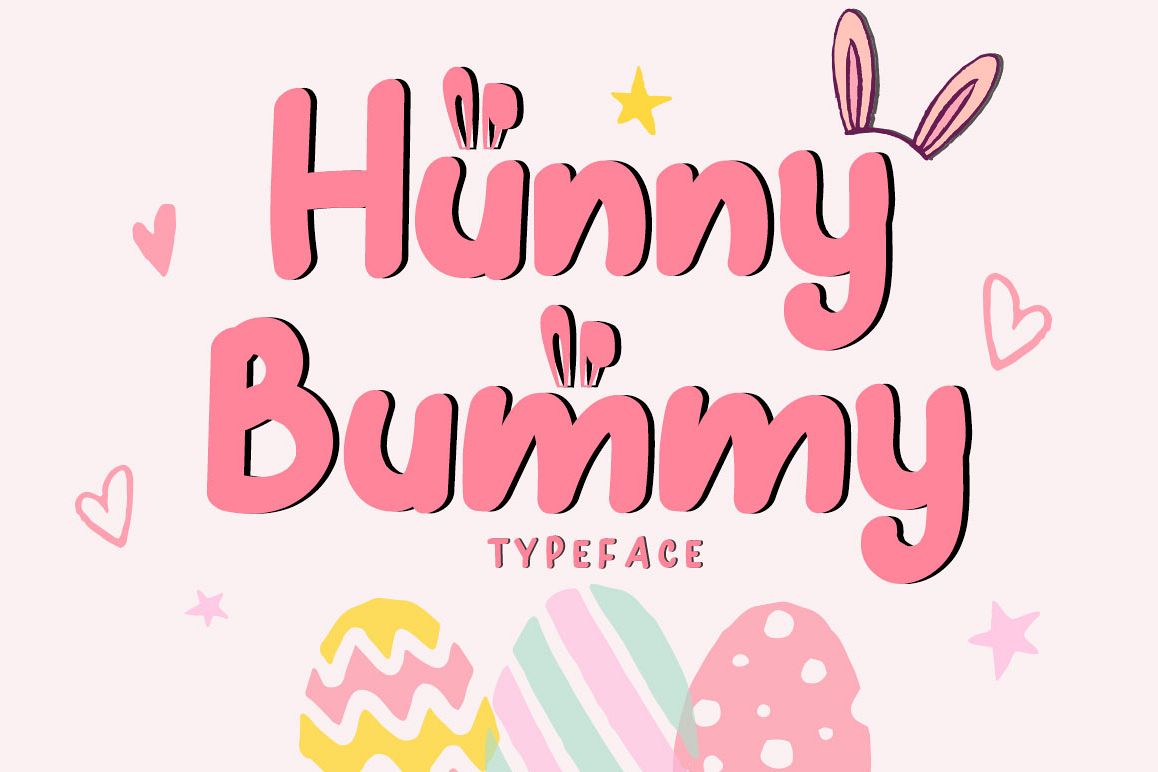
Hunny Bummy Typeface is a cute handwritten typeface, comes in a regular style and alternated with bunny ears.
Hunny Bummy's Features :
- Standard Characters ( A-Z, a-z )
- Numerals
- Symbols
- Alternative Characters ( A-Z, a-z )